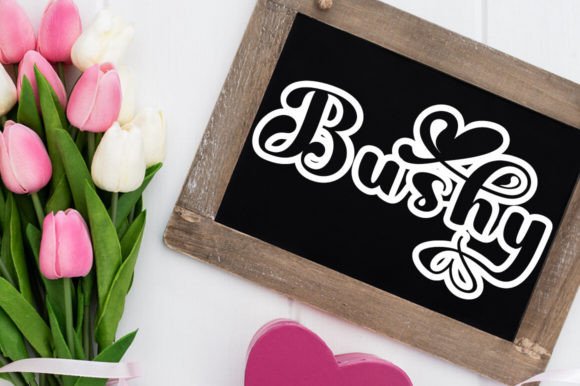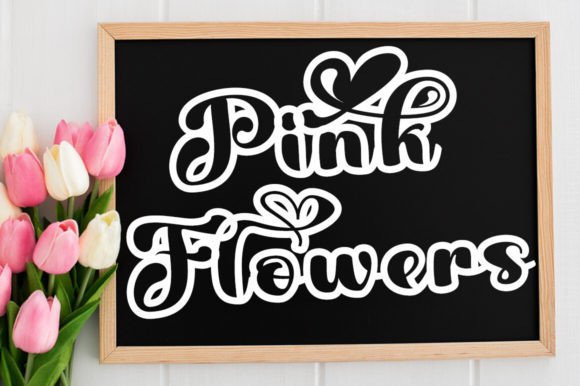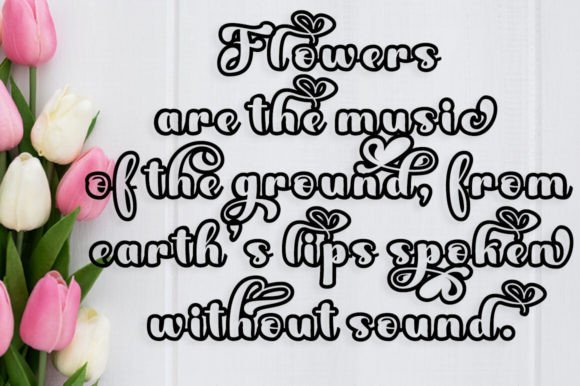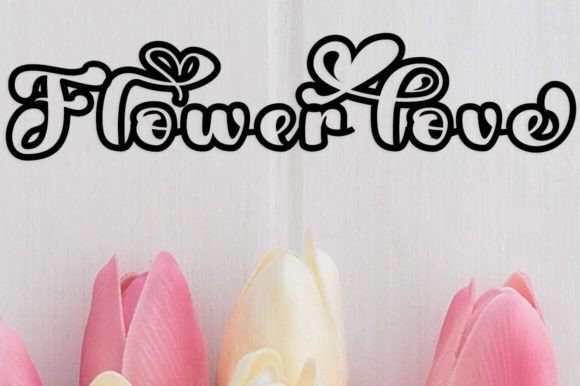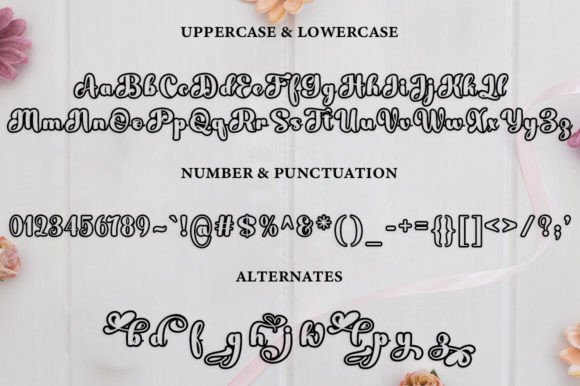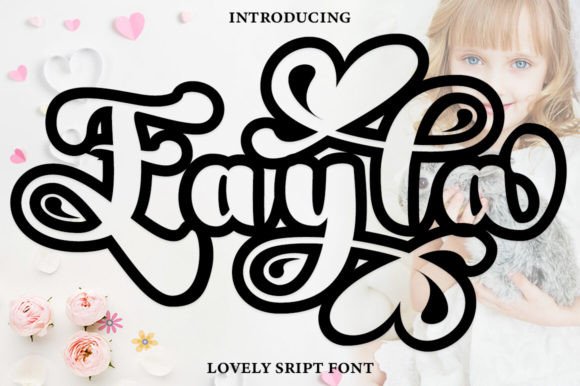
Fayla Font: The Ultimate Handwritten Font for Creative Projects
Are you a designer, crafter, or DIY enthusiast looking for a font that can add a touch of warmth and personality to your projects? Look no further than Fayla Font, a beautiful handwritten font that is both versatile and flexible. In this article, we’ll explore the features and benefits of Fayla Font, and why it’s the perfect choice for your next creative project.
What is Fayla Font?
Fayla Font is a modern handwritten font that is designed to bring a sense of warmth and romance to your projects. With its cute and jovial style, this font is perfect for a wide range of applications, from crafting and DIY projects to digital designs and marketing materials. Fayla Font is a carefully crafted font that is designed to be both elegant and playful, making it the perfect choice for designers and crafters who want to add a personal touch to their work.
Key Features of Fayla Font
So, what makes Fayla Font so special? Here are just a few of its key features:
- Cute and Versatile: Fayla Font is a highly versatile font that can be used for a wide range of projects, from cute and playful designs to more elegant and sophisticated applications.
- PUA Coded: Fayla Font is PUA (Private Use Area) coded, which means that you can access all of the glyphs and swashes easily. This makes it easy to customize your font and add your own personal touch.
- Language Support: Fayla Font comes complete with language support, making it easy to use for designers and crafters who work with international clients or projects.
- Handwritten Style: Fayla Font has a beautiful handwritten style that is both warm and inviting. This makes it perfect for projects where you want to add a personal touch.
Benefits of Using Fayla Font
So, why should you choose Fayla Font for your next project? Here are just a few of the benefits of using this amazing font:
- Adds a Personal Touch: Fayla Font is a handwritten font that adds a personal touch to your projects. This makes it perfect for designers and crafters who want to create unique and personalized designs.
- Versatile: Fayla Font is a highly versatile font that can be used for a wide range of projects. This makes it a great choice for designers and crafters who work on a variety of different projects.
- High-Quality Design: Fayla Font is a high-quality font that is designed to produce beautiful results. The font is carefully crafted to ensure that it looks great in a variety of different sizes and applications.
| Author | Ws Studio |
Fayla Font is a beautiful handwritten font that is perfect for designers and crafters who want to add a personal touch to their projects. With its cute and versatile style, PUA coding, and language support, this font is a great choice for a wide range of applications. Whether you’re working on a crafting or DIY project, or creating digital designs and marketing materials, Fayla Font is the perfect choice. So why wait? Download Fayla Font today and start creating beautiful, personalized designs that will stand out from the crowd!